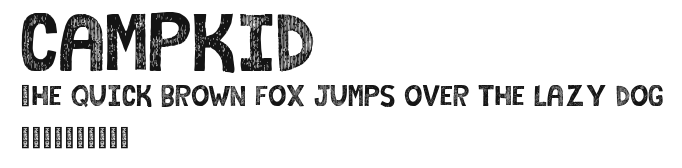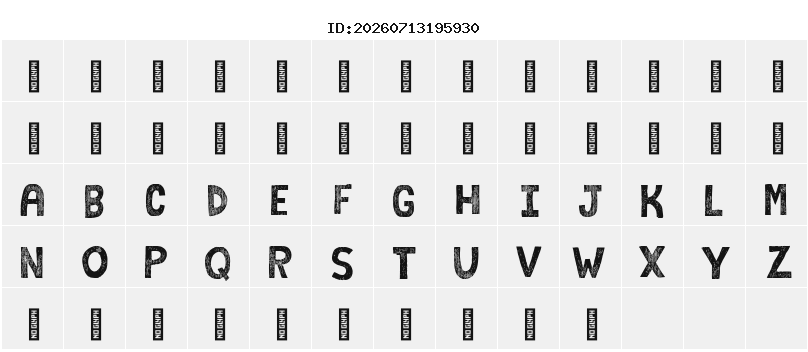
campkid Preview
• Font Name: campkid
• Designer: kristina klaffke
About campkid.ttf
campkid.ttf is a modern, elegant sans-serif font designed for ultimate readability and visual harmony. Perfect for branding, headlines, web design, and print materials.